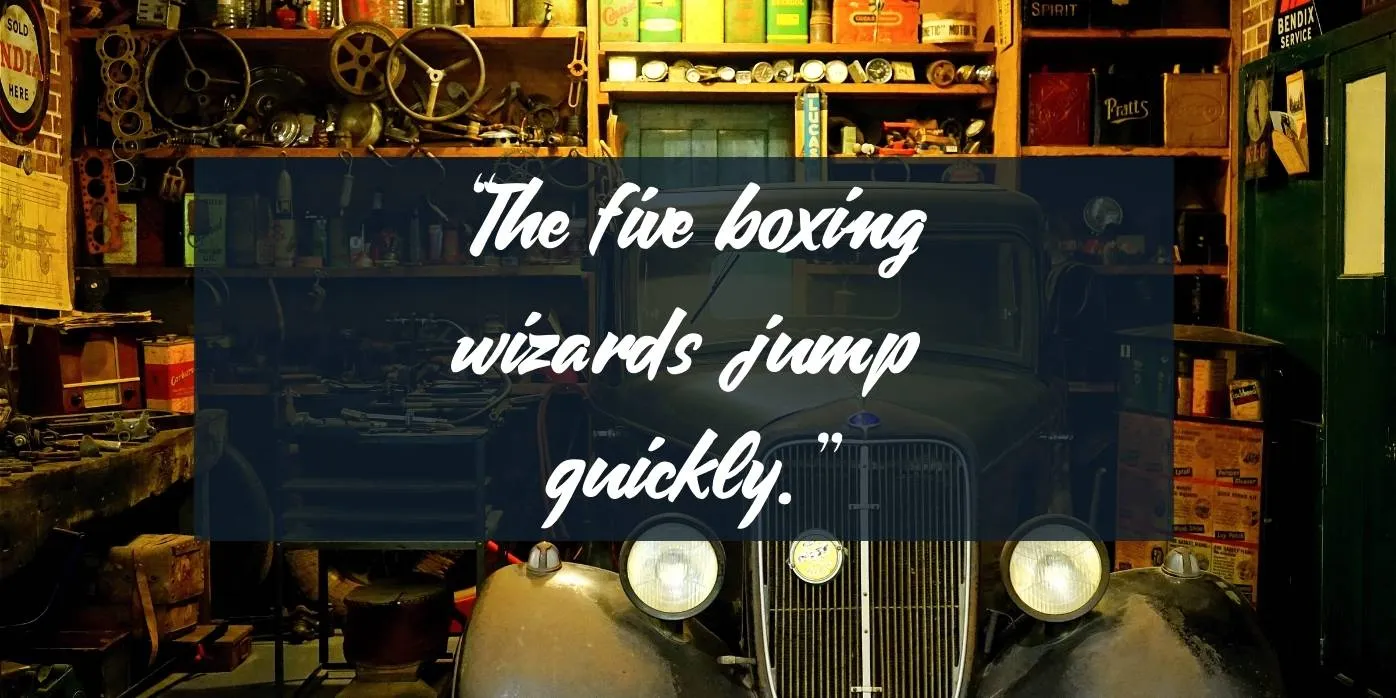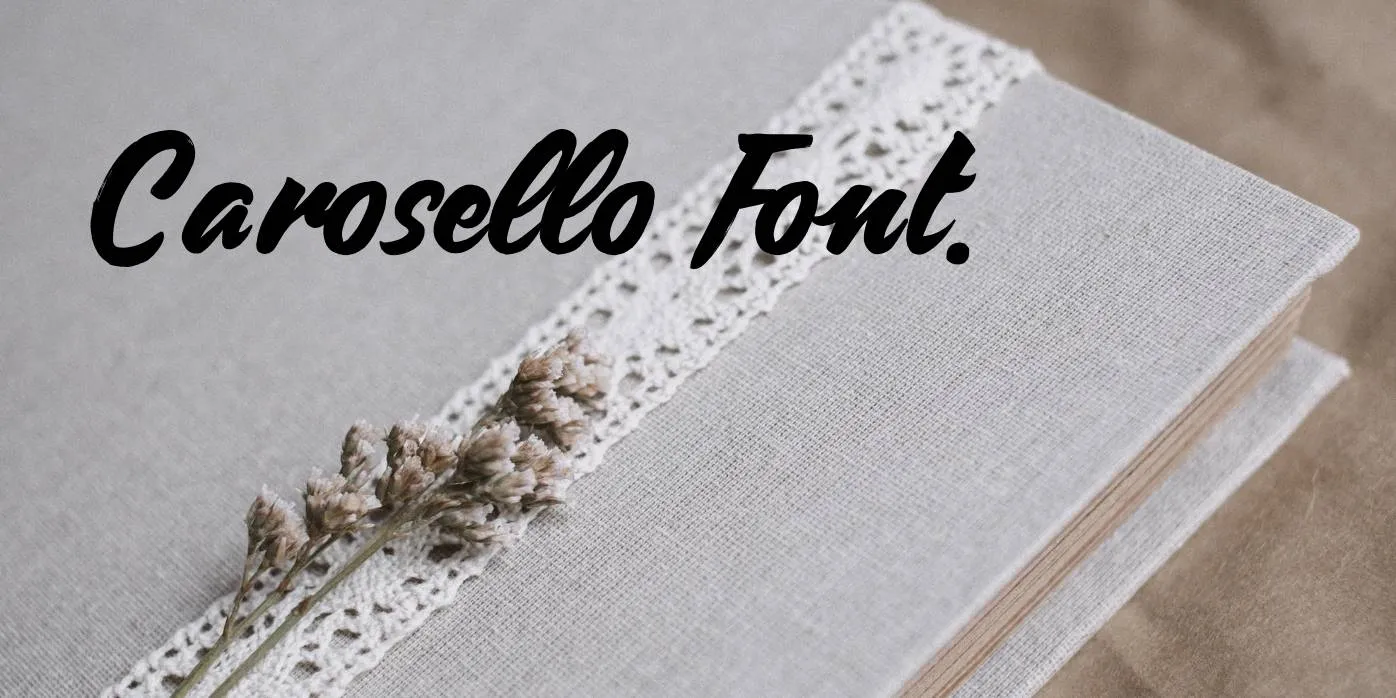
Carosello Font
Today we are introducing a most astonishing and classic font family that was famous by the name Carosello Font. This awesome font was designed by a very famous and intelligent developer Toshi Omagari. This awesome font family belongs to the handwritten typeface. This attractive font is specially designed for various vintage designs.
This classy font is available in many unique Glyphs, and also comes in four amazing styles. This awesome has very famous weights almost equal to three. These popular weights are given Bold, italic, and regular. These important weights and characteristics increase its overall performance.
The sketchy font is the most famous and alternative font to this attractive font family. This cozy font supports all the international languages which is the reason for the uniqueness and popularity of this tremendous font. If you need to get the attention of your viewer then it is very easy to download this classic font from our authorized websites. This awesome font provides the facility for a tool generator that helps in various types of interesting graphic designs.